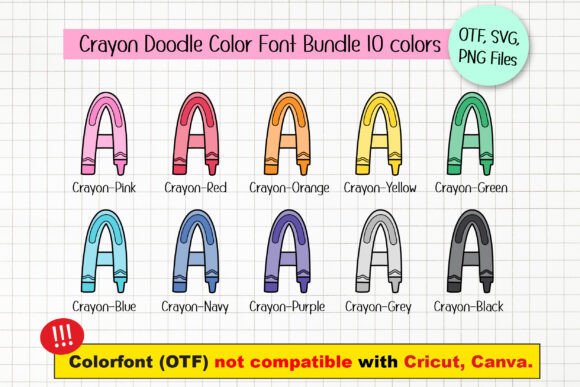
Crayon Doodle Font
Introducing “Crayon Doodle” a whimsical font that brings the colorful world of school artistry to life. With its vibrant school theme and playful design, this font captures the creativity and imagination of students. Featuring 10 different color fonts and letters shaped like crayons, “Crayon Doodle” offers endless possibilities for custom DIY craft projects, personalized names, sublimations, posters, and more. Let your imagination run wild with “Crayon Doodle” and unleash the artist within!